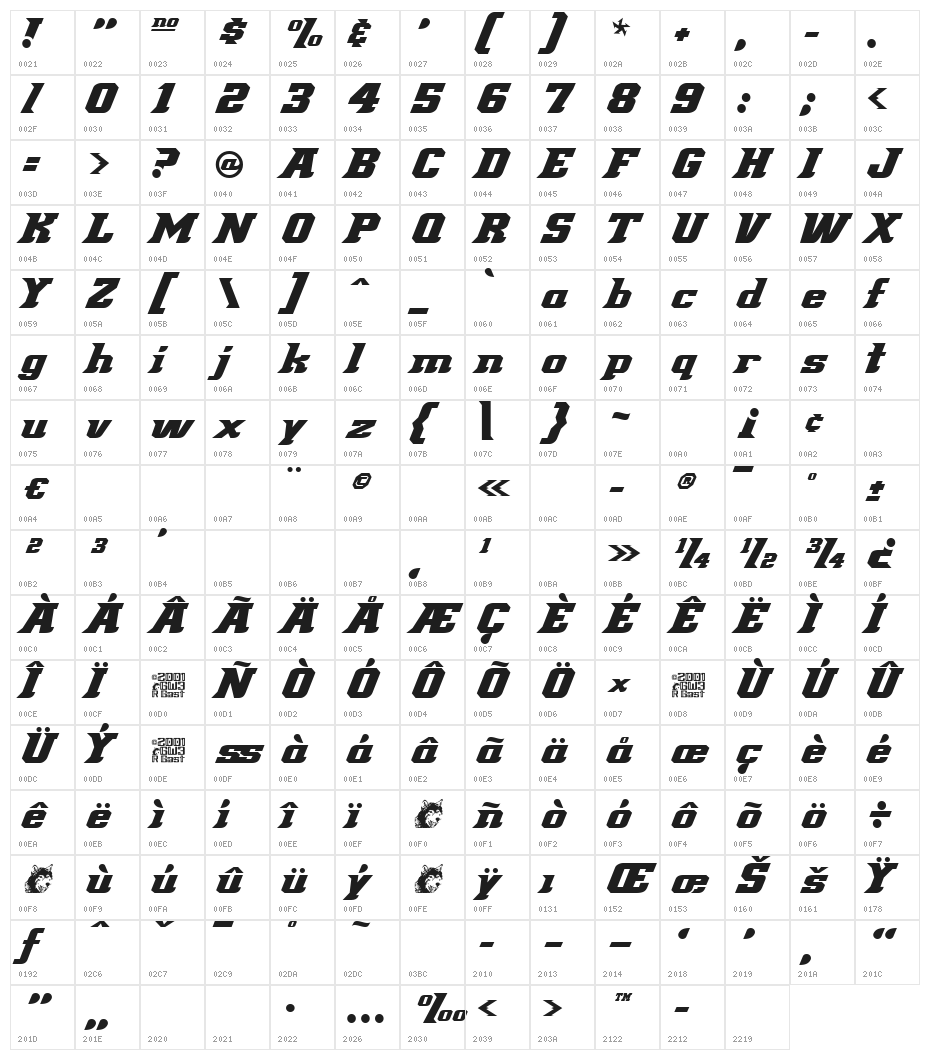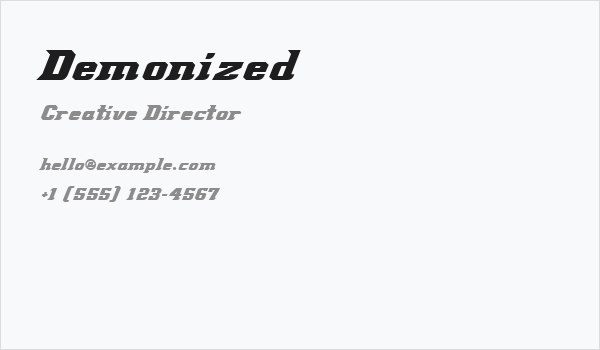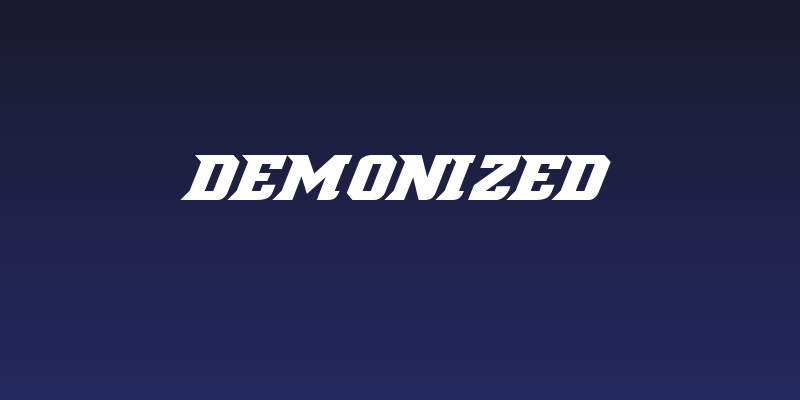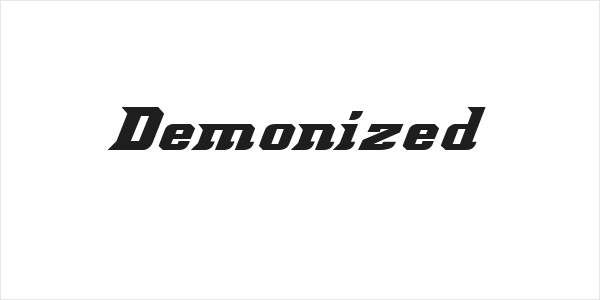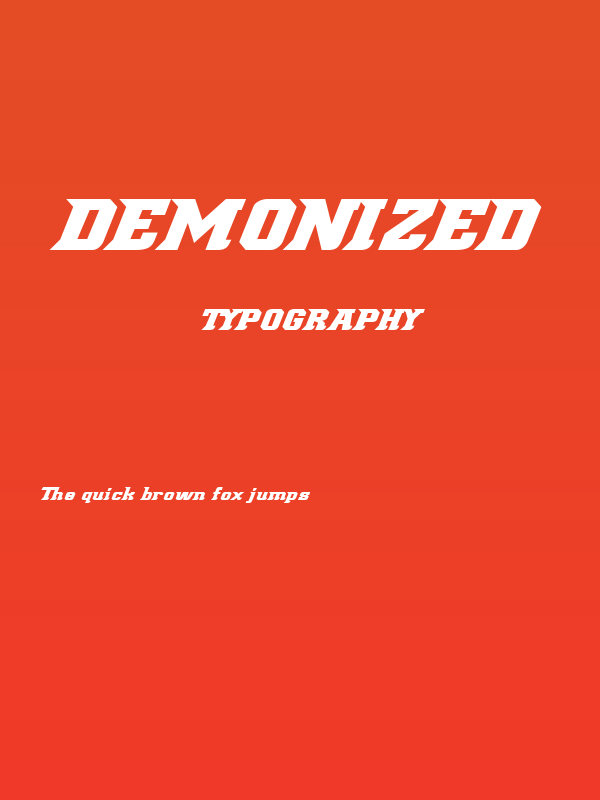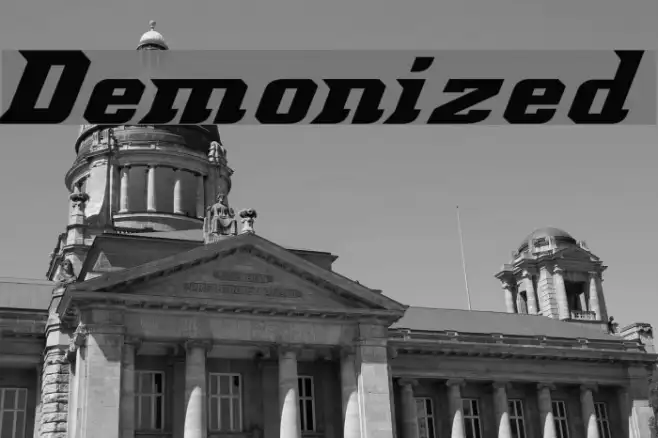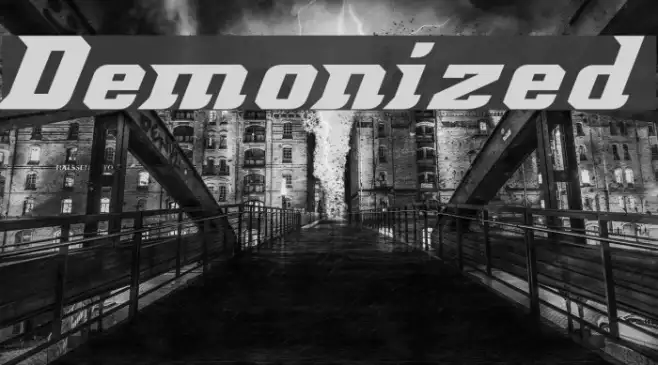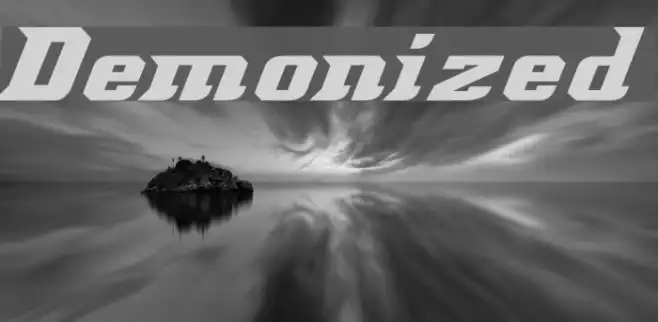
Demonized Font
Demonized Description
This font features a bold and dynamic style with a strong presence. The characters are slightly italicized, giving them a sense of motion and energy. The strokes are thick and consistent, providing a high contrast that enhances readability. The design is modern and edgy, with sharp angles and a geometric influence that adds a unique flair. The uppercase and lowercase letters maintain a cohesive look, while the numerals and special characters complement the overall aesthetic. This font is ideal for projects that require a bold statement and a contemporary feel.
| Proposed Projects | Perfect for branding, logos, headlines, posters, and any project needing a strong, modern impact. |